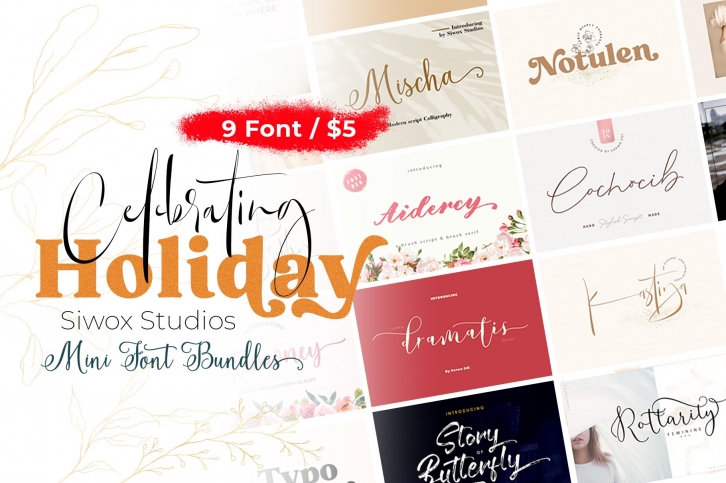
Mini Bundle Celebrating Holiday! is a trendy and unique font with an authentic style. It was designed by Siwox Studios and it's a great choice for creative people who need such a font. It was released on October 5, 2020 and the file size is 9.11 MB. Mini Bundle Celebrating Holiday! will add an organic vibe to any design idea!